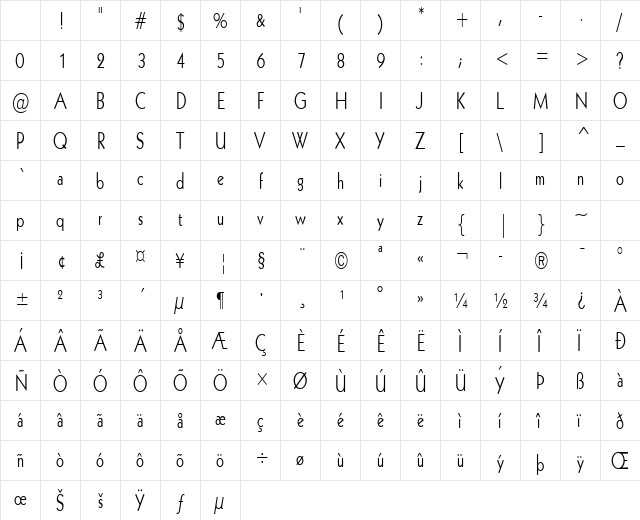
Geo112Thin is a composed and adaptable typeface that performs quietly and consistently across a wide range of design contexts. Its slender proportions lend an understated elegance to any composition.